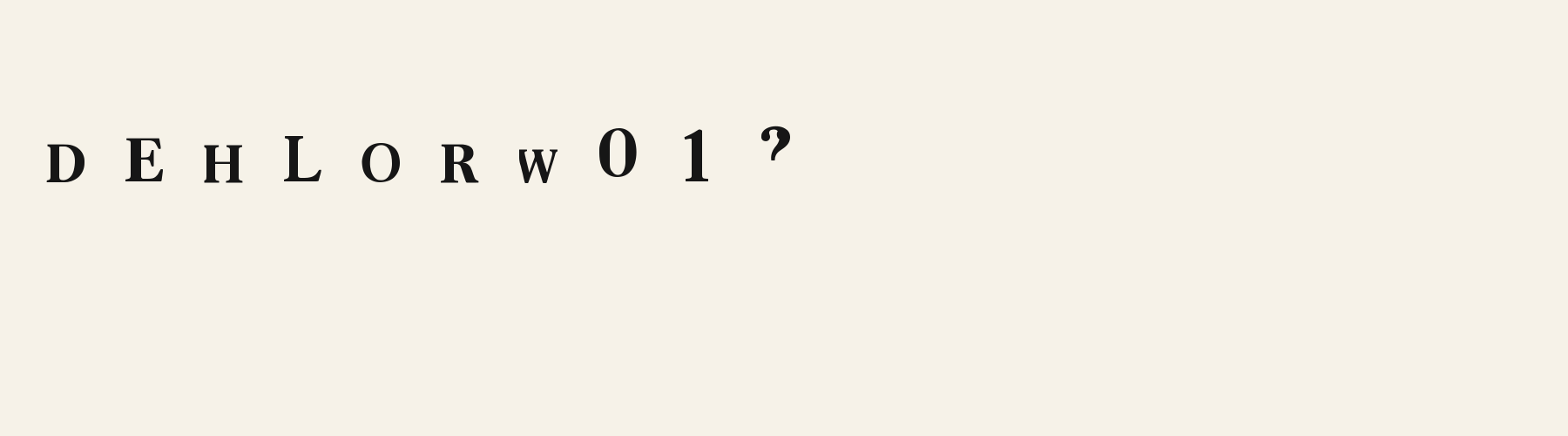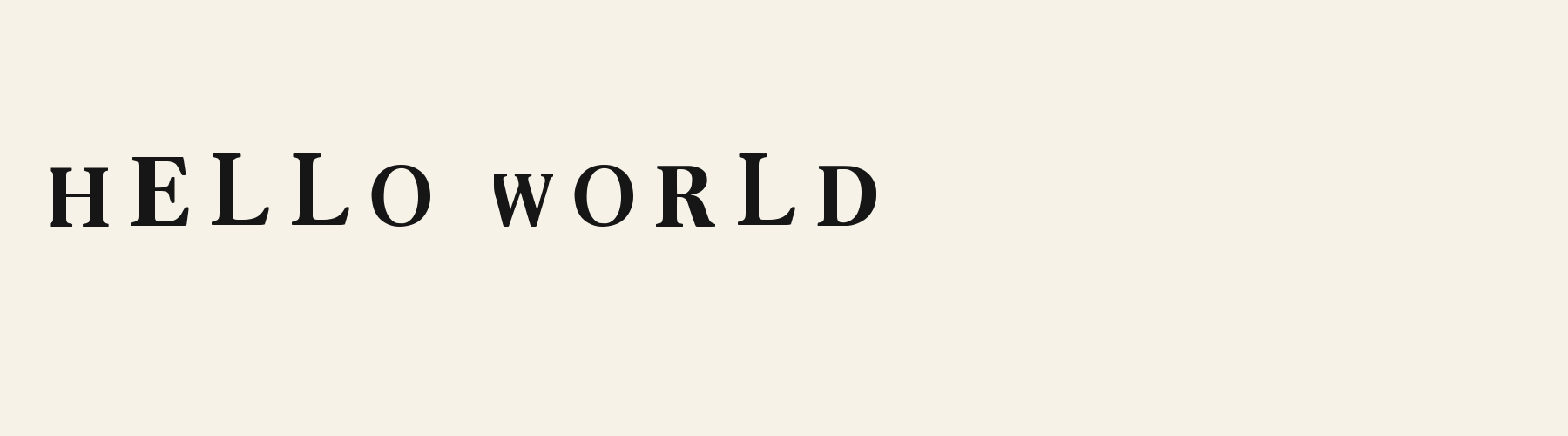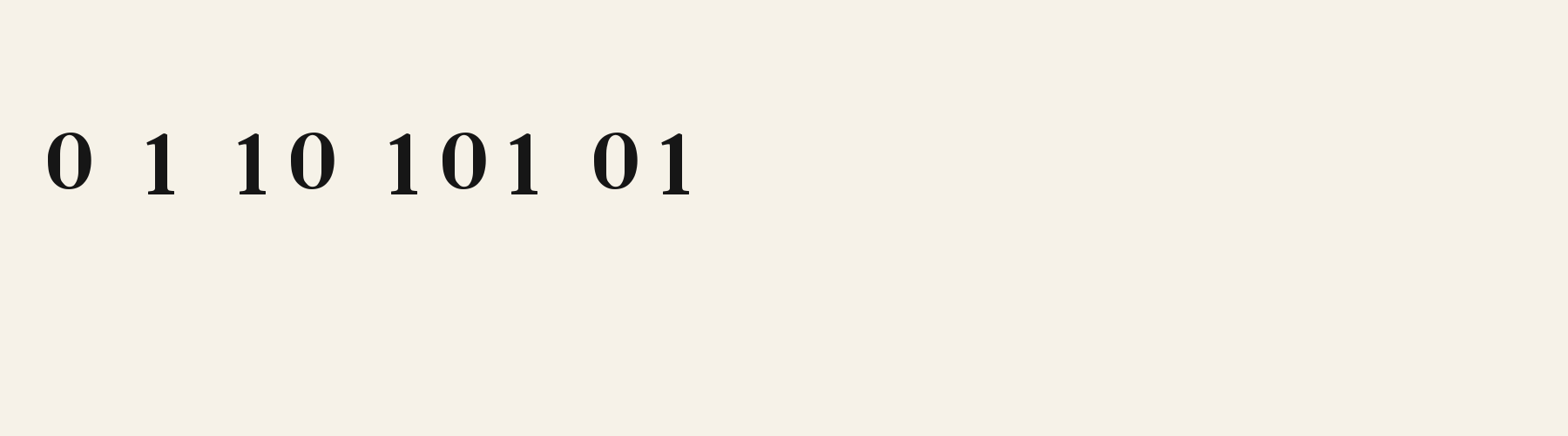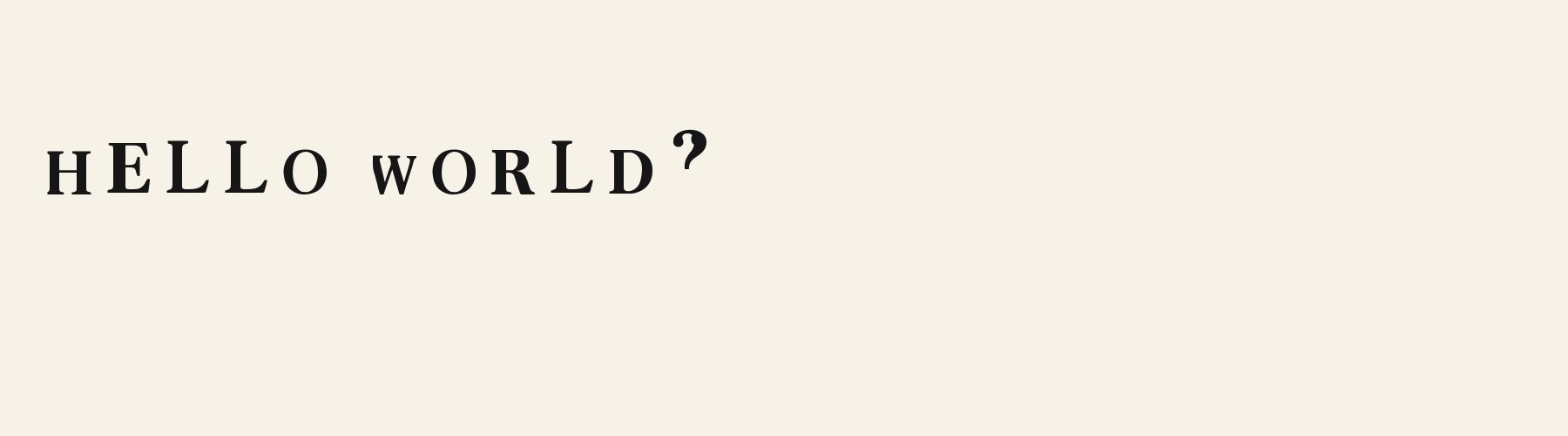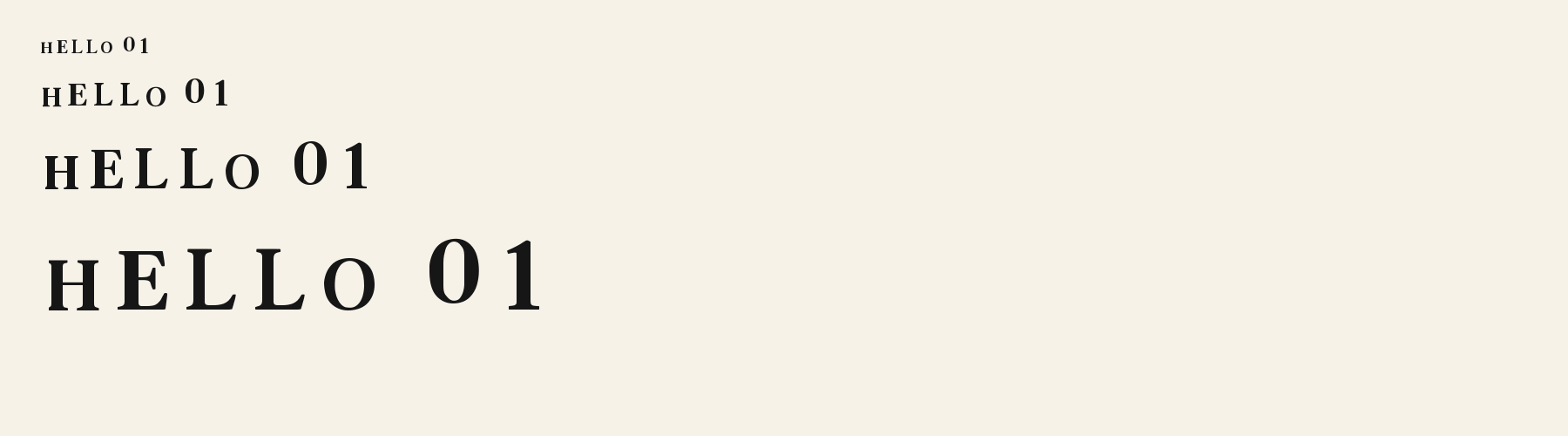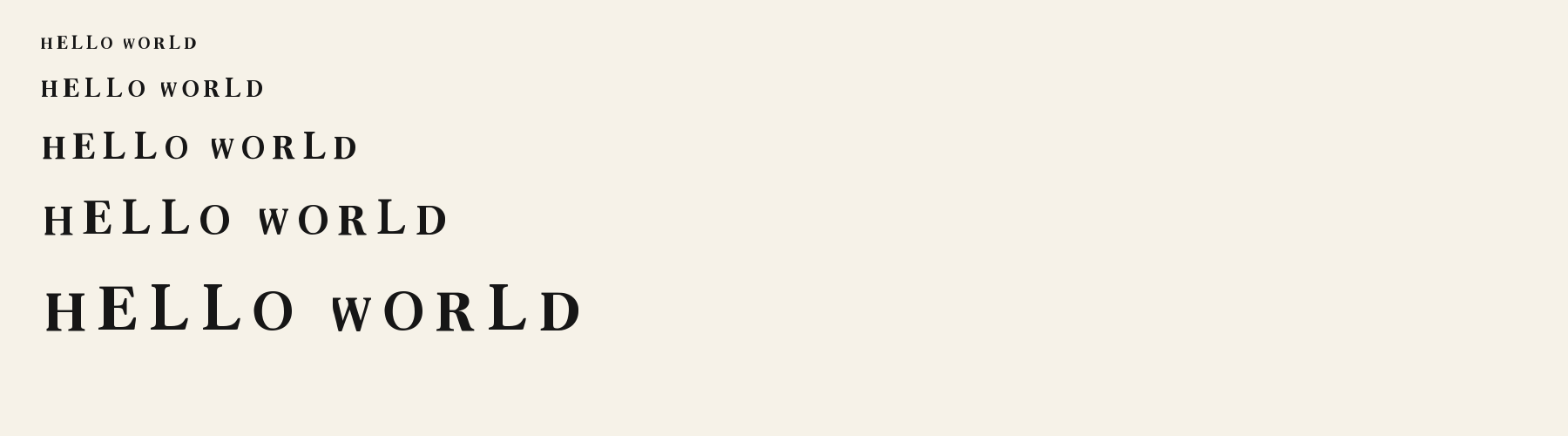
Serif Book Warm Stout Stem Oval Font
Serif Book Warm combines stout upright stems with thin curved crowns and broad, bracketed feet.
Stout Stem Oval Letterforms
Serif Book Warm combines stout upright stems with thin curved crowns and broad, bracketed feet. The O has a smooth oval outline and an open interior, keeping the heavy sides from closing the letter in. The R encloses a conventional, unpinched counter above a strong diagonal leg that widens toward its foot. On L, the long lower arm finishes with an upward turn, giving repeated letters a gentle lift along the baseline. These details make the capitals feel settled and substantial, while the curved joins soften their formal structure. The result suits an editorial mood with a clear, dark presence.
Check repeated Ls, rounded Os, and the R leg in your actual wording, especially where broad feet sit close together. Inspect lowercase passages separately because these specimens show capitals only. For other scripts or accented text, verify glyph availability and appearance independently.
Try this face for headings, with a lighter sans for supporting text and compact labels. Its heavy stems, thin curved tops, and broad feet already create a strong texture; simpler companion shapes could keep secondary information visually distinct.
Compare the original spacing with a slightly wider setting. Repeated L feet establish a strong baseline rhythm, while the rounded O shapes introduce open space. Check whether added spacing keeps each word connected or makes the capitals feel isolated.
In this uppercase phrase, Serif Book Warm has a closed, unpinched counter inside R and smooth oval counters inside O. These familiar interior shapes give the heavy capitals a restrained editorial character.
For the same uppercase wording, Keyhole Counter Roman introduces a pinched, keyhole-shaped counter inside R. Its O retains a simple oval counter, so the distinctive interior treatment appears selectively within the phrase.
THE QUIET HOURS
Book or album cover. Broad capital feet and dark upright strokes give a literary cover title a settled presence against generous empty space. A SLOWER SUNDAY
Website headline. Smooth oval counters and softly bracketed joins bring a calm editorial tone to a short website heading. SEASONAL TABLE
Menu board. Stout stems and lifted L terminals give a menu section heading substance with a small touch of movement.
The scenes are illustrations drawn on this page with Serif Book Warm itself, not client work.
Serif Book Warm's lowercase x reaches 69.9% of the capital height, close to the 69.6% median for serif fonts, taller than 28 of the 51 other serif fonts. Ascenders on b, d, h, k and l rise 6.3% above the capitals, and descenders on g, j, p, q and y drop 28.8% of the cap height below the baseline, shallower than 28 of the 51 other serif fonts. Serif Book Warm runs 5.7% wider than the median for serif fonts: an average lowercase letter, spacing included, is 88.3% as wide as the capitals are tall (an average capital, 100.7%). The o is close to a circle, 1.13 times as wide as it is tall, and M is the widest capital, at 1.11 times the width of H. Round letters overshoot: O rises 2.5% of the cap height above H and dips 1.2% below the baseline.
The letters stand upright, leaning less than 2.5° either way. Vertical stems measure 22.9% of the cap height, heavier than 42 of the 44 other serif fonts. Ink covers 36% of each lowercase letter's box (its advance width by the cap height), darker than 32 of the 51 other serif fonts. Strokes change thickness with direction: the sides of o and O are 4.5 times as thick as their tops and bottoms.
Its 95 characters include 52 Latin letters, plus 43 figures, punctuation marks and symbols; there are no accented Latin letters beyond A to Z. The word space measures 45.9% of the cap height, and the blank space either side of a lowercase letter takes up 11.4% of its width. The font carries no kerning, so spacing comes from each letter’s own side bearings. The figures have different widths, so columns of numbers set in Serif Book Warm will not line up exactly.
Measured from the version 0.3.0 font file. Comparisons are with the 376 published library fonts measured on November 8, 2026, 52 of them serif fonts.
Includes all 95 printable Basic Latin characters, 95 characters in total.
- What fonts pair well with Serif Book Warm?
- Geo Triangle Aperture (sans serif), Atrium Sans (sans serif) and Vow Script (script) are drawn on a different letter structure, so Serif Book Warm can carry the headings while one of them sets the text. Each has its own page with a type tester for trying the pair.
- Which fonts are similar to Serif Book Warm?
- In the same serif style: Pretty Pearl Serif (8% narrower); Quartz Nocturne (53% narrower, lighter strokes); Salon Didone (lighter strokes, 18% narrower).